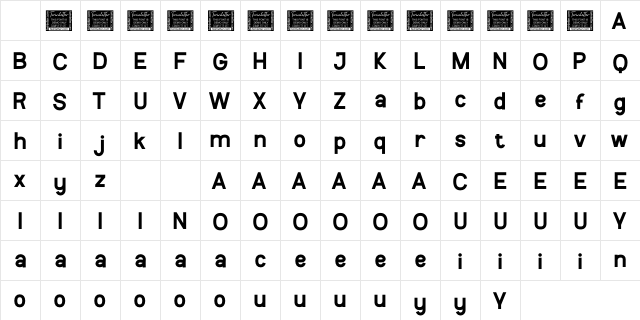
Complete Confirm Personal Use glyph index. Displaying only characters natively supported by Confirm Personal Use font.
Confirm is a composed and adaptable typeface that performs quietly and consistently across a wide range of design contexts.